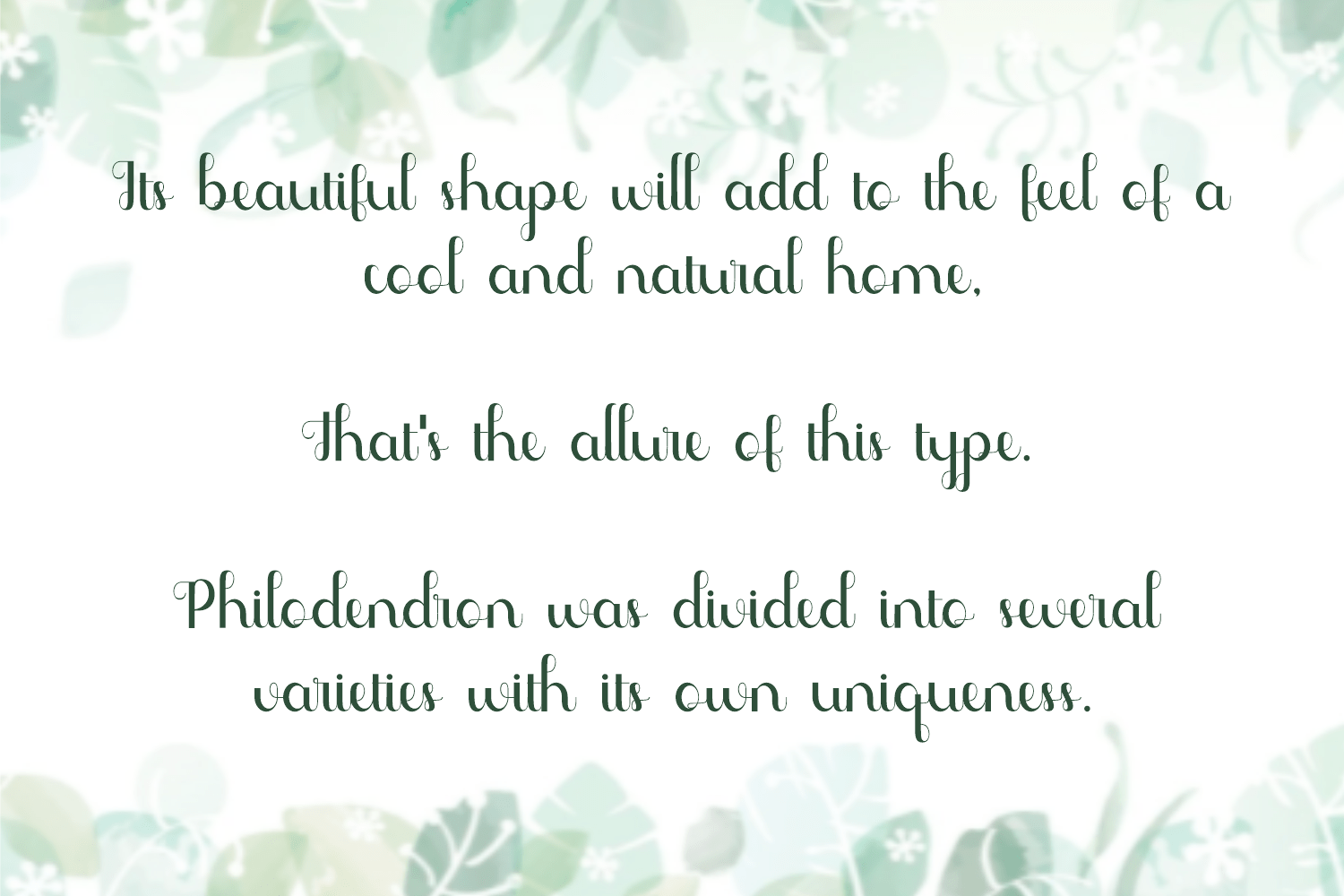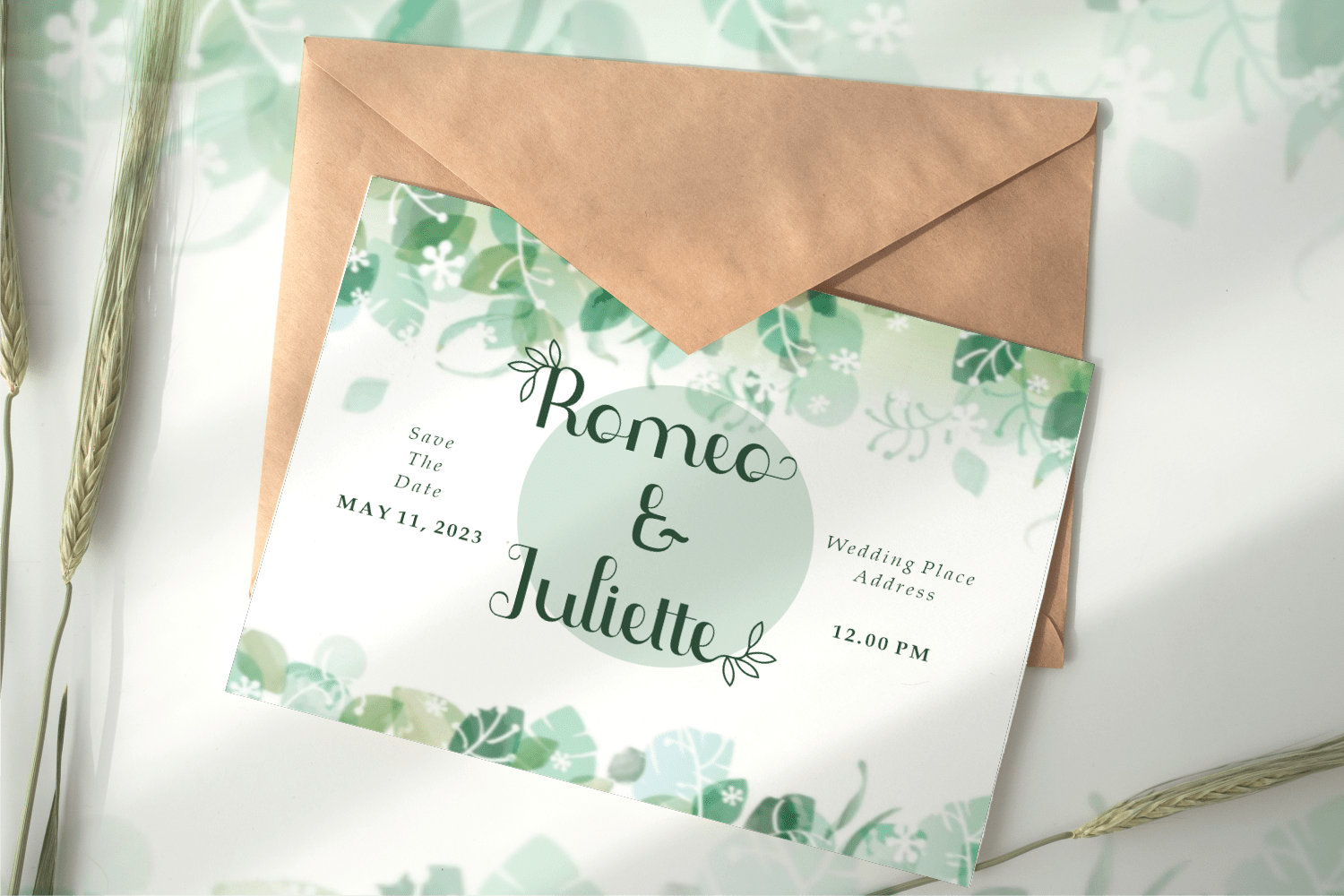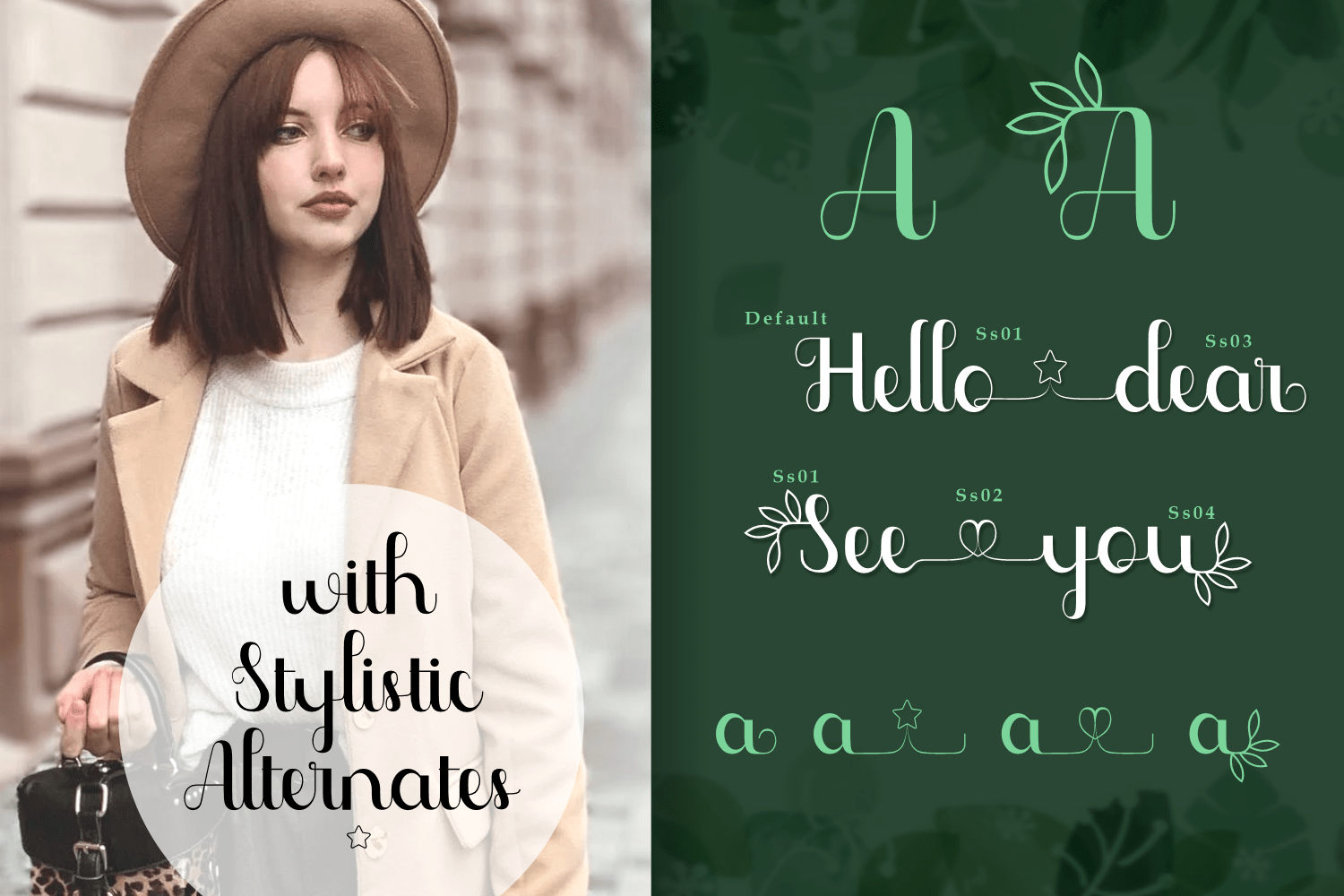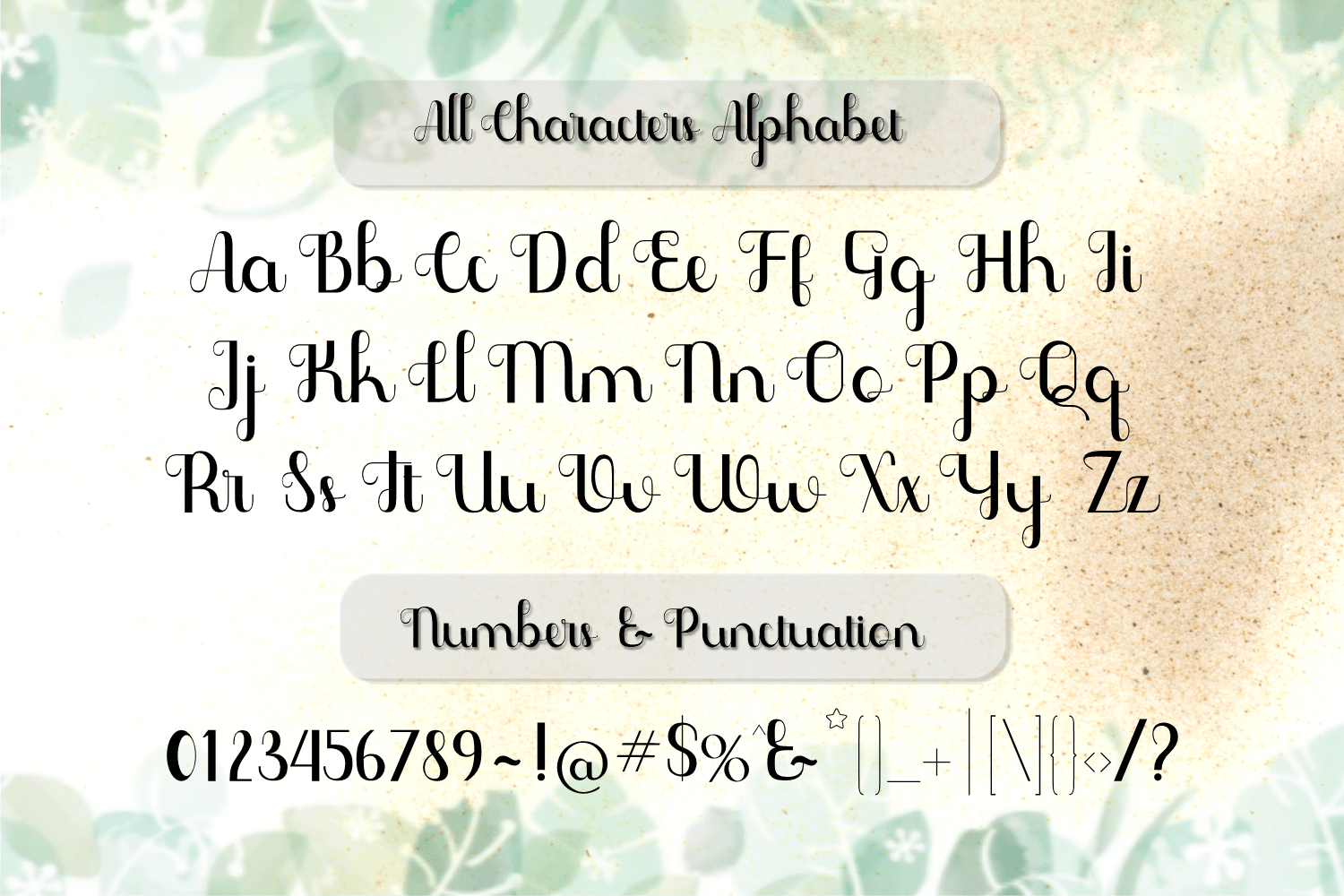
Phyllodendron Script Font
This is a lovely script font featuring charming, playful characters that seem to dance along the baseline. This font is PUA encoded which means you can access all of the glyphs and swashes with ease!